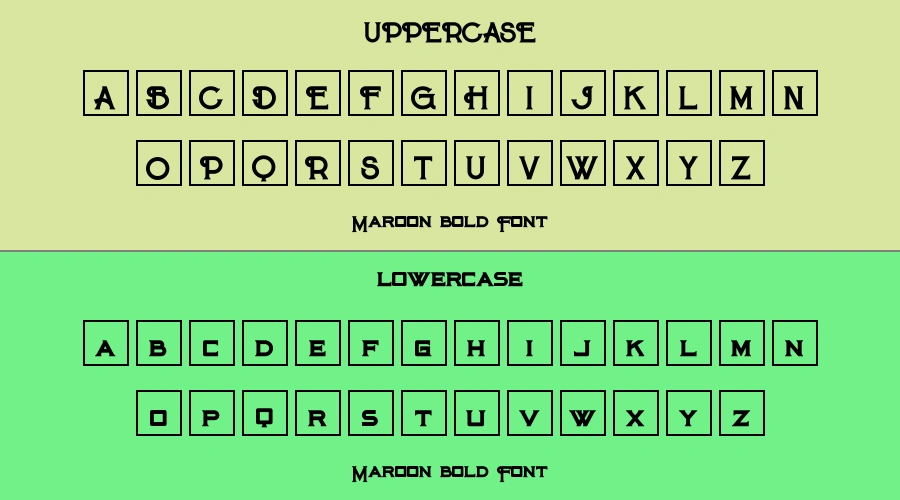
About Maroon bold Font
When typographic excellence matters most, Maroon bold Font delivers through its thoughtful blend of alternates and authenticity. Specially crafted for book design, it offers the versatility and technical excellence required for sophisticated design work. Every detail serves a purpose.
The character set showcases thoughtful details like engineered curves alongside functional traditional figures. This proves especially valuable in reference books, where multi-language support directly influences results. Particular attention was paid to ear placement and historical reference during development.